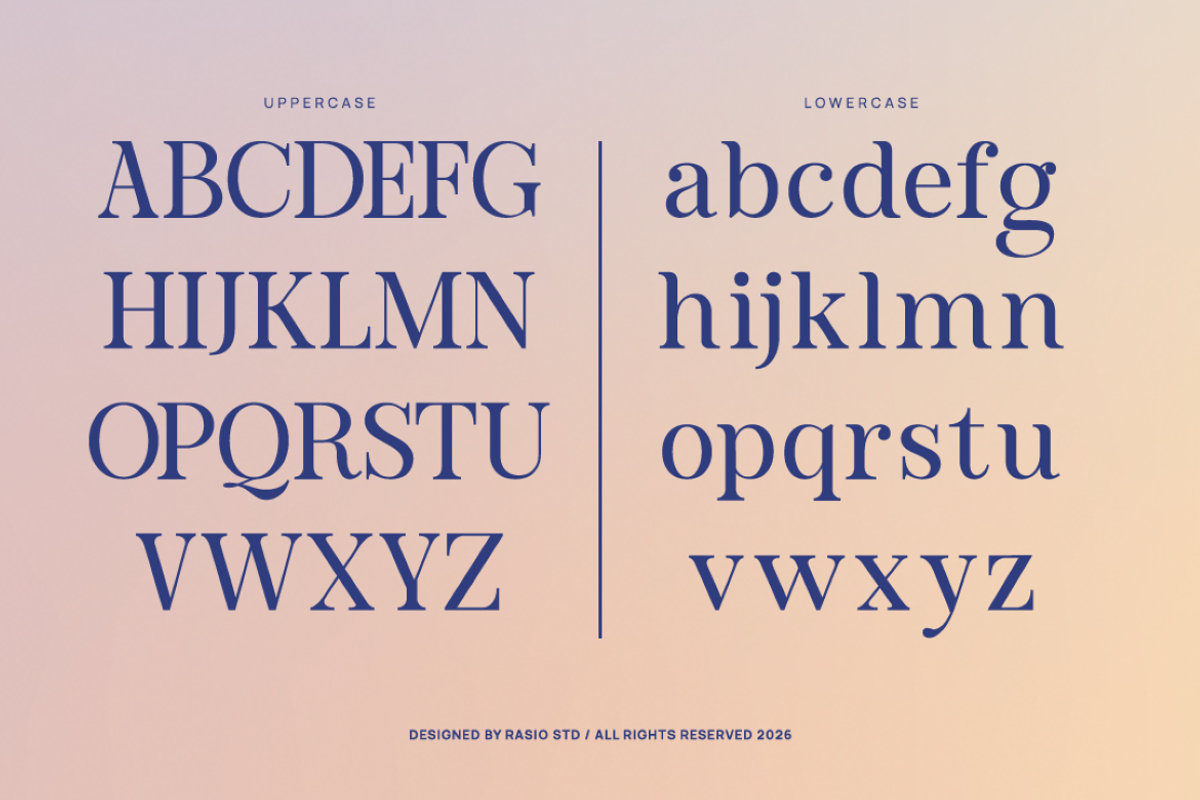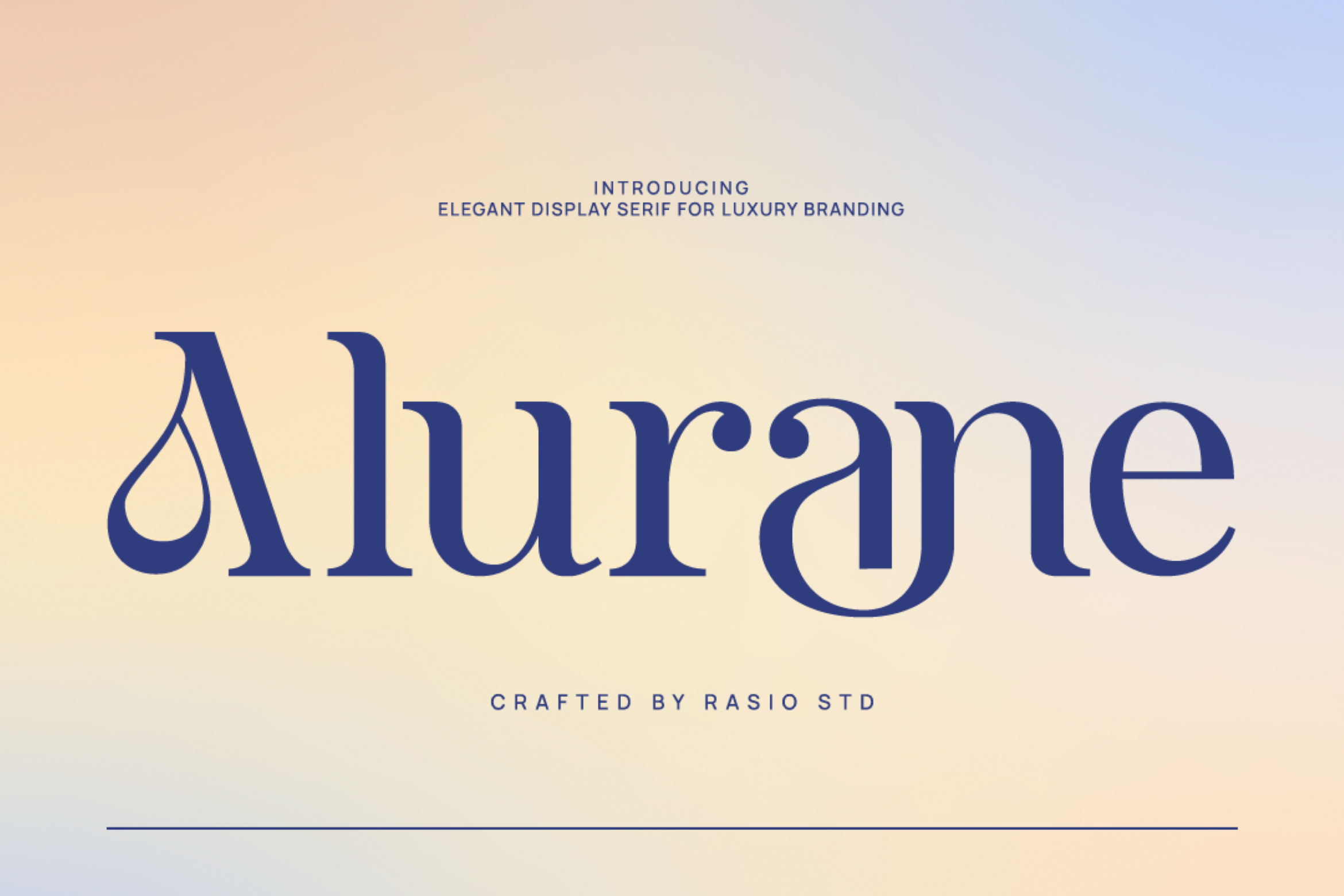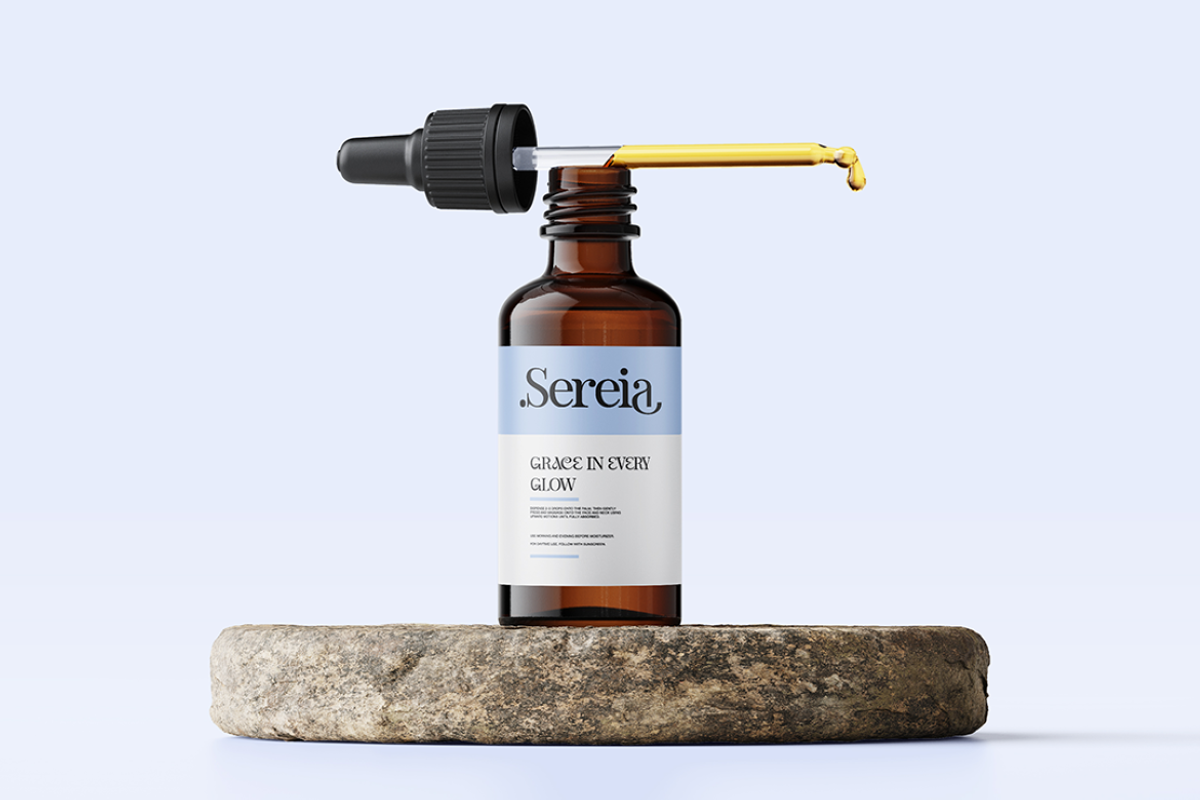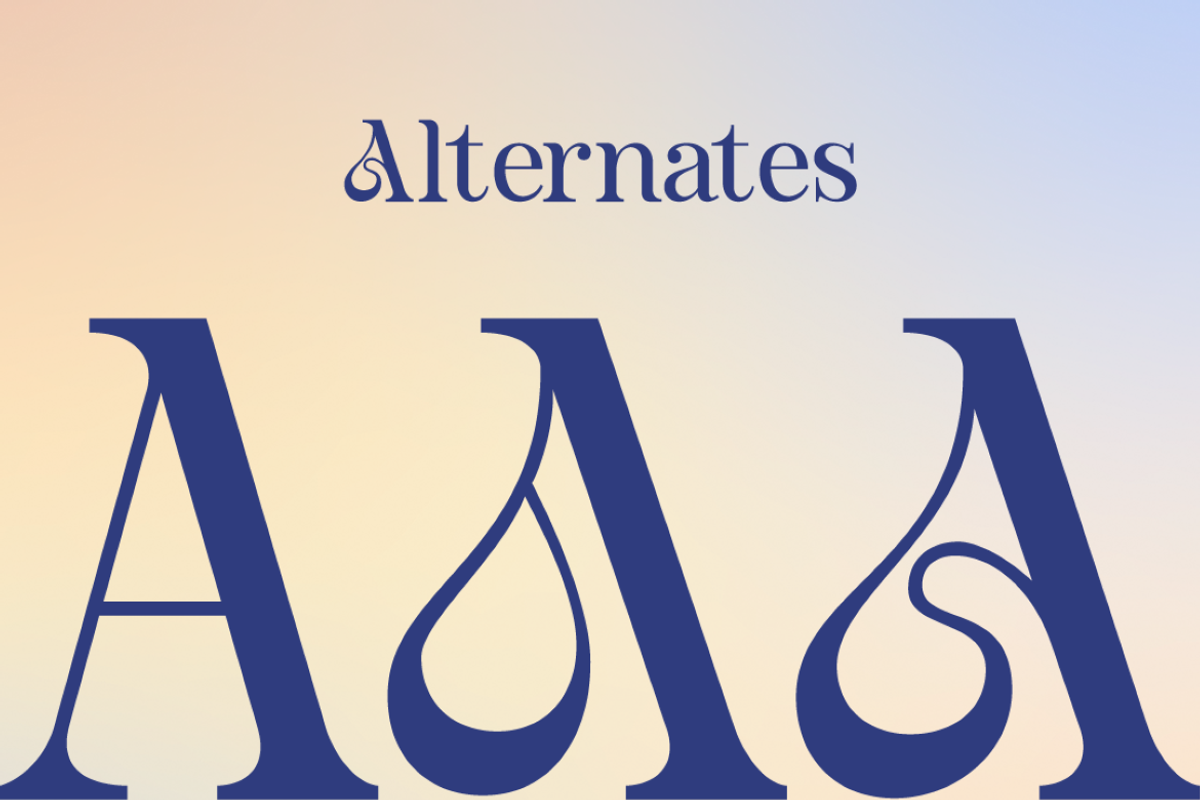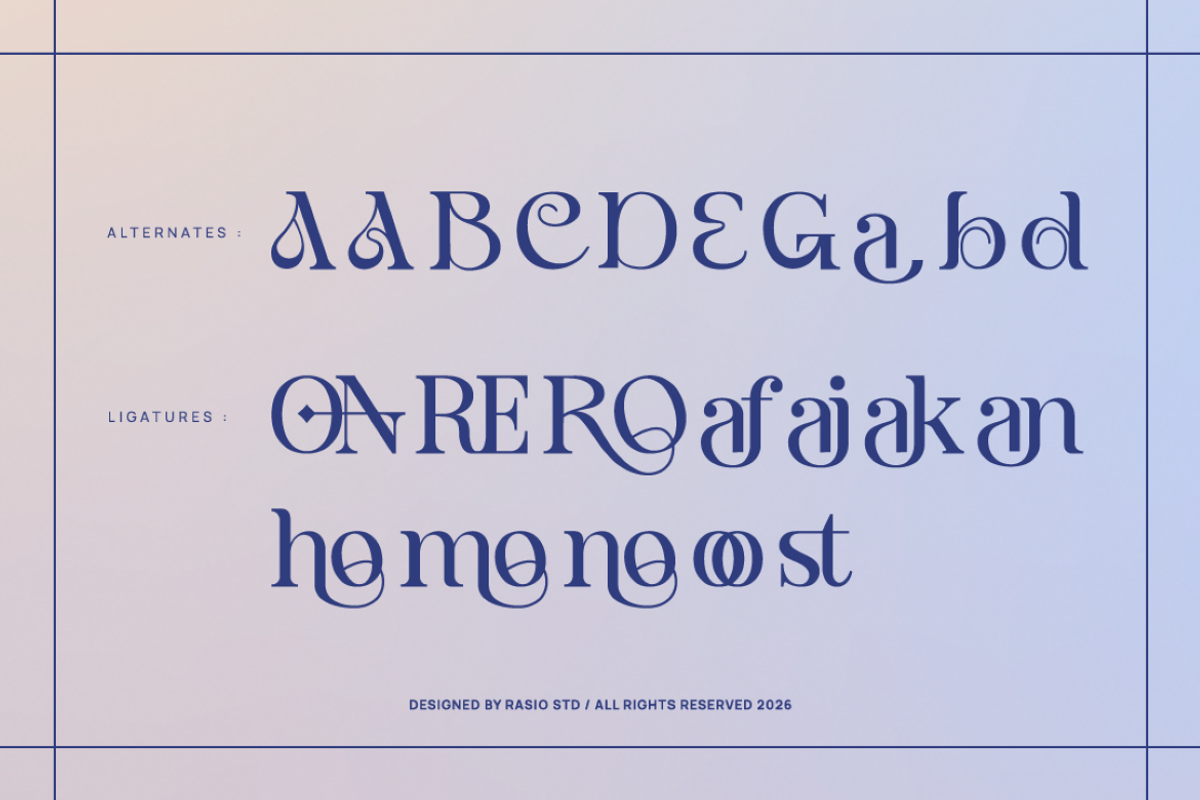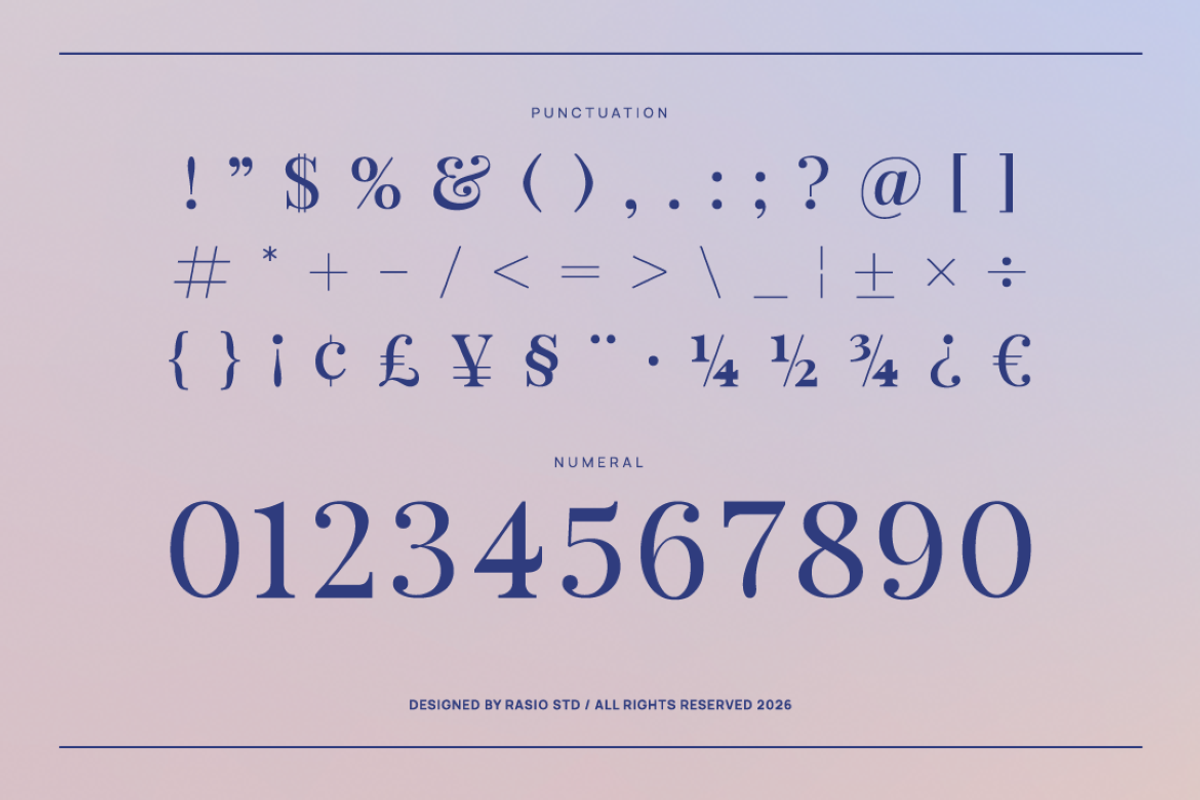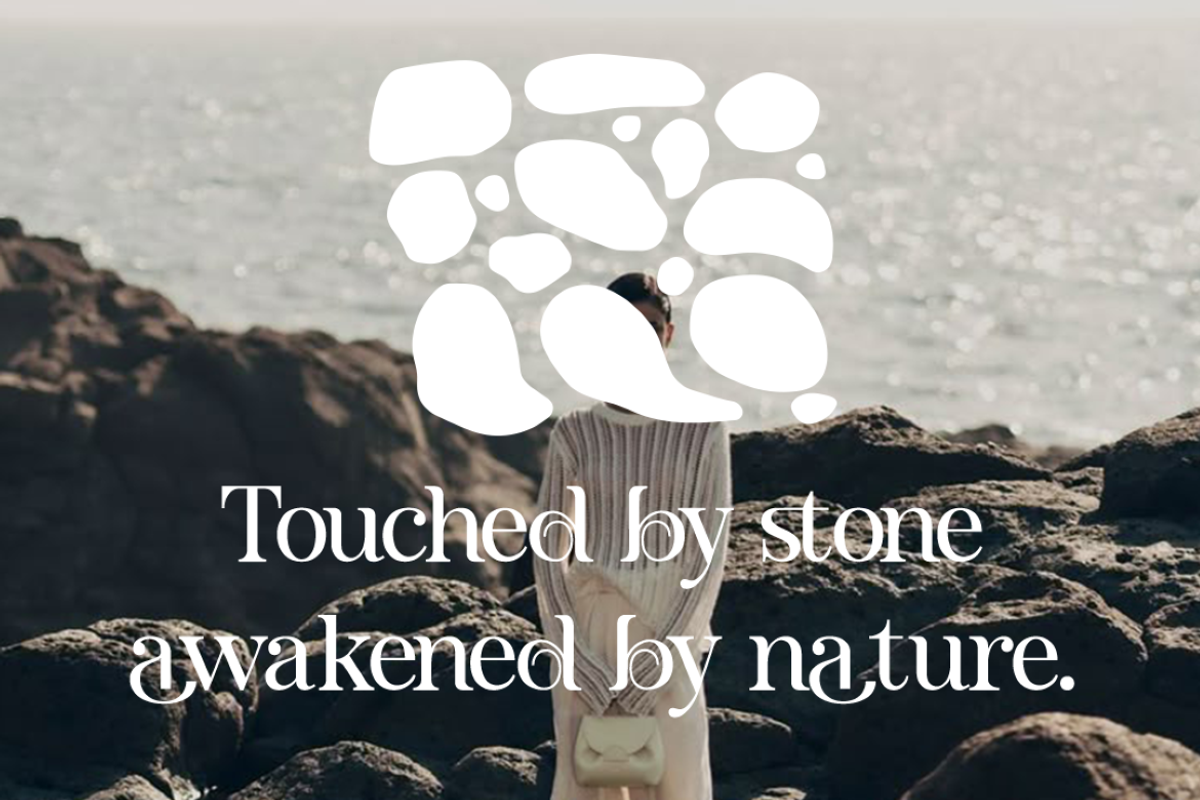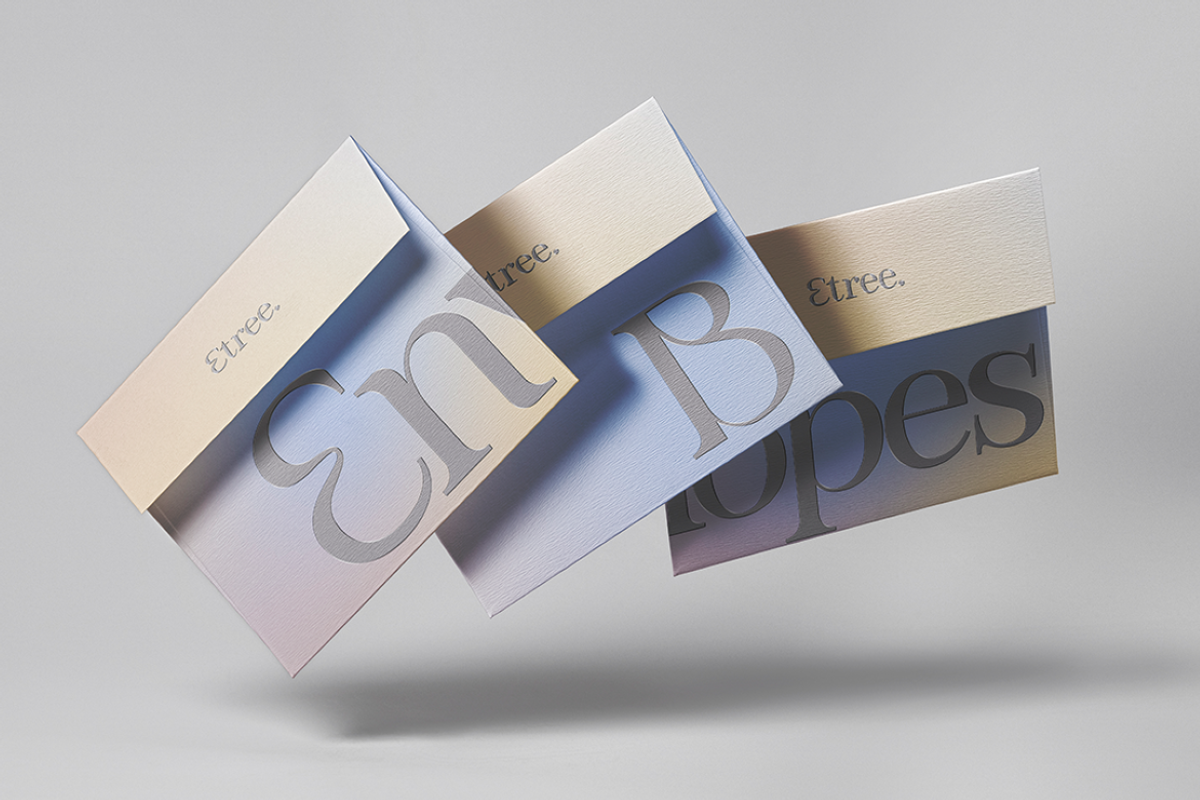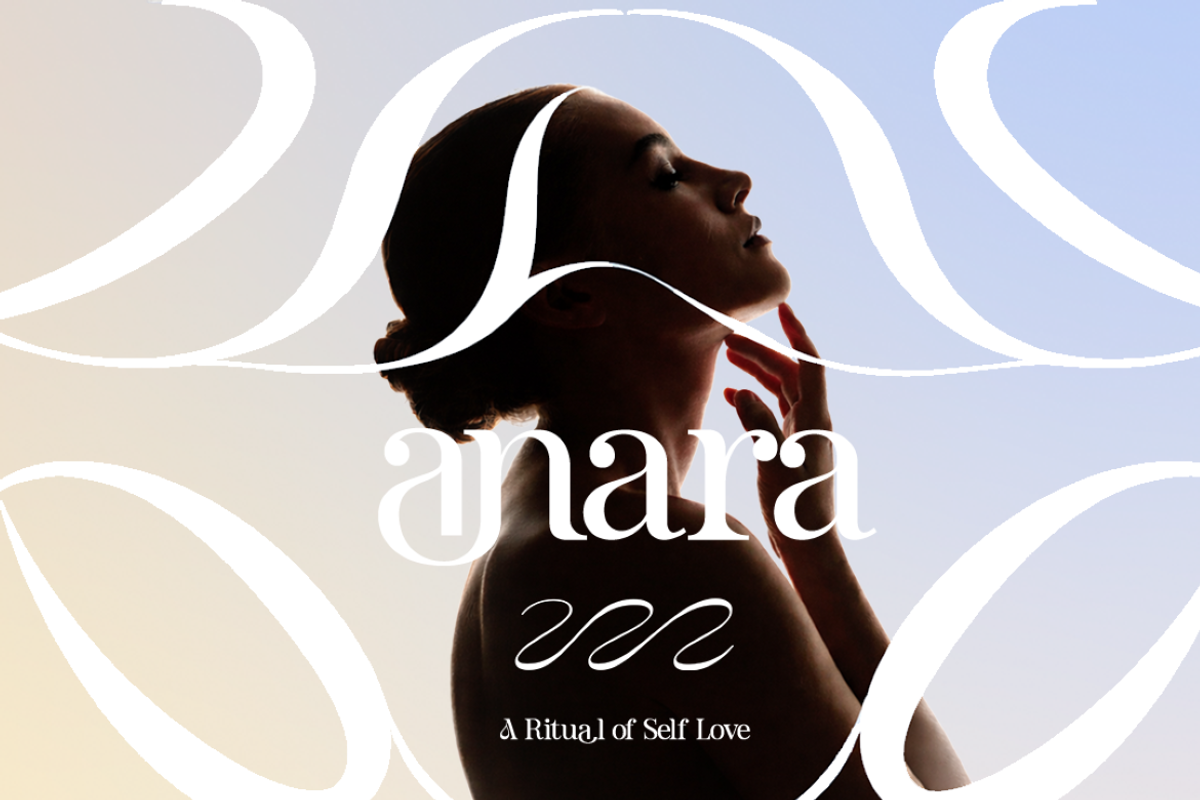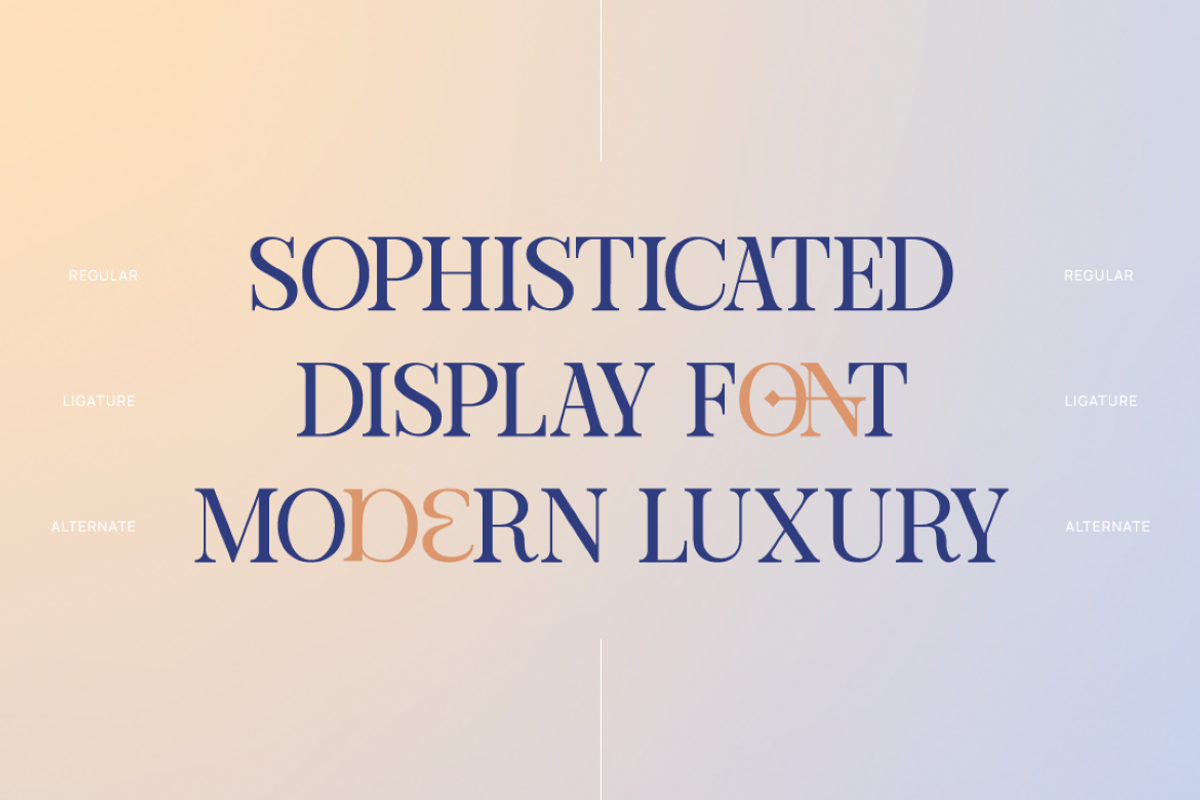
Alurane Elegant Display Serif Font
Alurane is an elegant display serif font crafted for refined branding and sophisticated typography. The design features high-contrast strokes, graceful curves, and distinctive serif details that create a luxurious and modern visual presence. This font includes uppercase letters, lowercase letters, numerals, and a wide set of punctuation symbols, offering versatile typographic elements for premium design work.
This font is highly relevant for design projects that require refined and luxurious typography. It works well for high-end branding, fashion editorials, premium product packaging, beauty brand visuals, elegant website headers, magazine layouts, sophisticated logos, and modern luxury marketing materials where strong visual elegance and typographic character are essential.
- Elegant high-contrast serif structure for a refined luxury look
- Graceful curves and distinctive serif details that enhance sophistication
- Balanced proportions between uppercase and lowercase characters
- Smooth stroke transitions creating a stylish editorial feel
- Clean spacing designed for striking display typography in branding and headlines
- Luxury brand identity and premium logo design
- Fashion editorials and high-end magazine headlines
- Elegant product packaging for beauty and luxury goods
- Boutique branding and sophisticated marketing materials
- Stylish website headers and upscale promotional graphics
Alurane let your message shine with elegant and sophisticated style